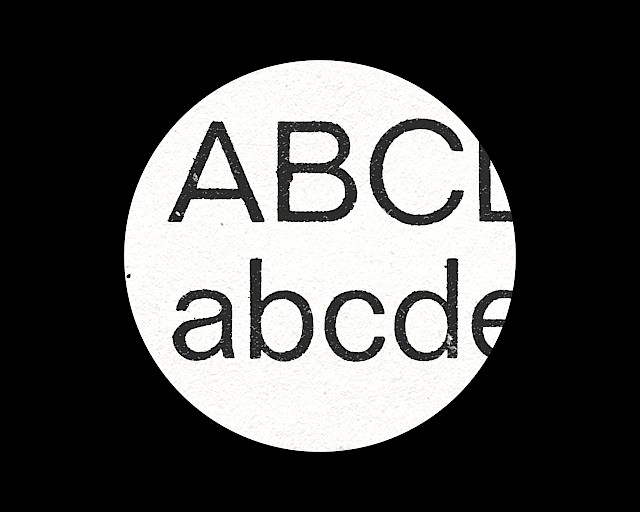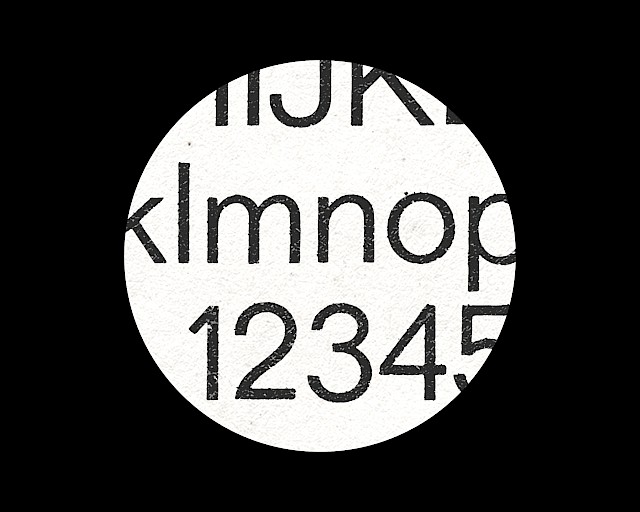
Folio, Konrad F. Bauer ( 1957-1962 )
ToScore draws inspiration from the Folio typeface, designed by Konrad F. Bauer for Walter & Baum ( 1957— 1962 ). Folio offers alternative shapes to the highly acclaimed typeface of the same period in the sans-serif genre ( Helvetica, designed by Max Miedinger and Eduard Hoffmann ( 1957 )). ToScore aims to highlight the subtle characteristics of the reference typeface that deviate from the classic model: the lowercase letters are generally wider, and although the stroke weight follows an almost geometric pattern, it is distributed organically with contrasts. ToScore integrates into both body text and display layouts. The family ranges from Regular to Black. Designed between 2014 and 2024, it was first launched in 2019.